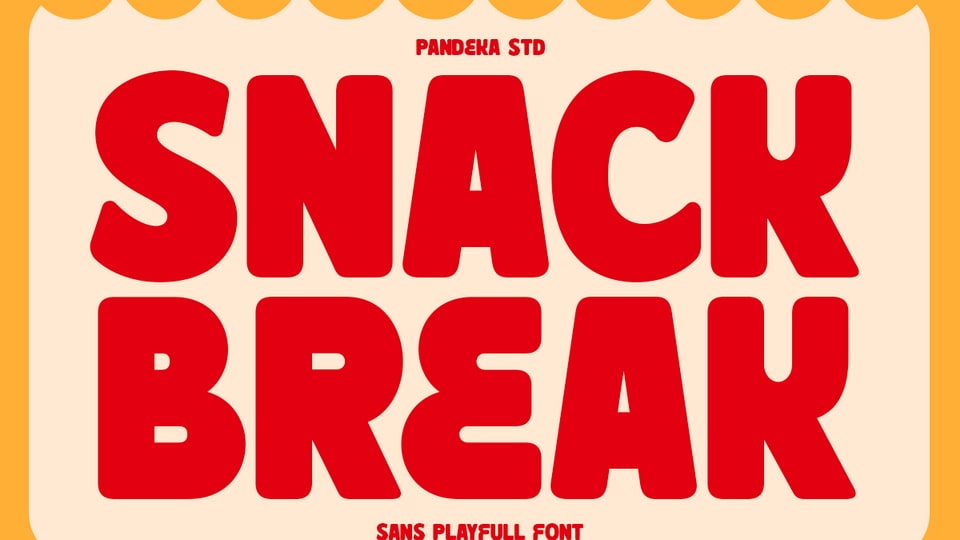
Download Snack Break font, a bold and friendly sans serif typeface that radiates warmth and cheer, inspired by fun snack packaging, retro signage, and cozy café vibes.